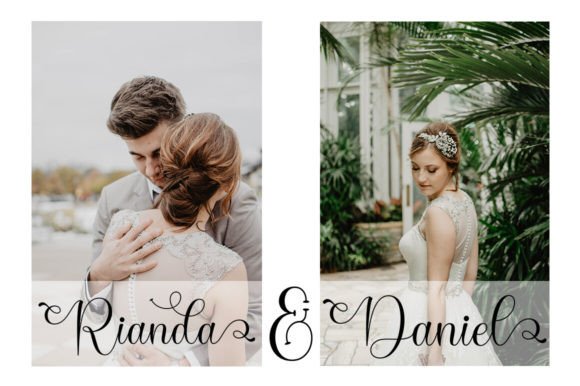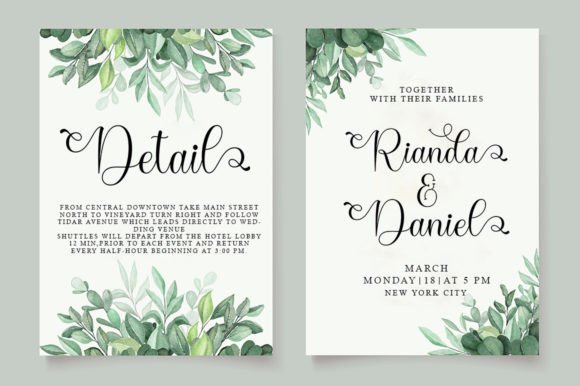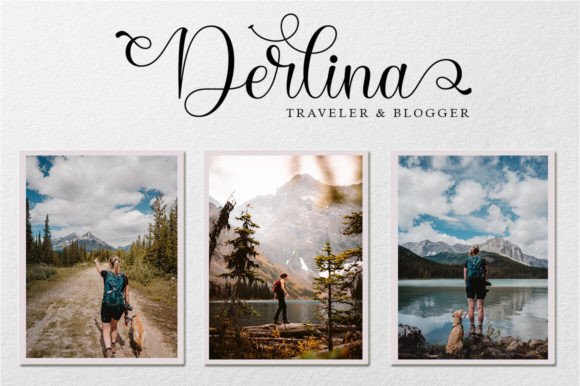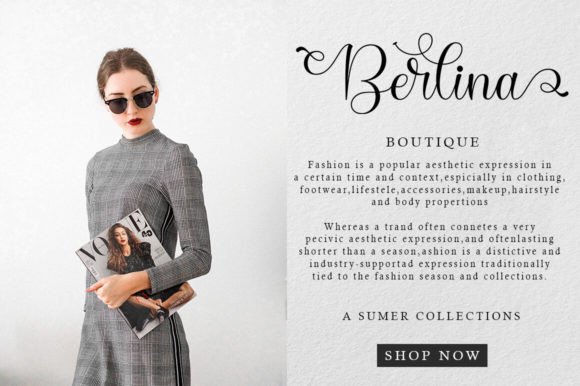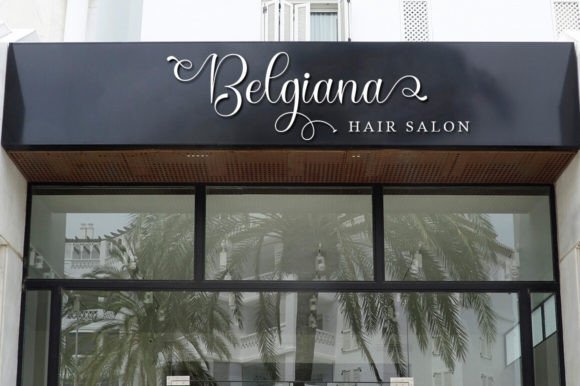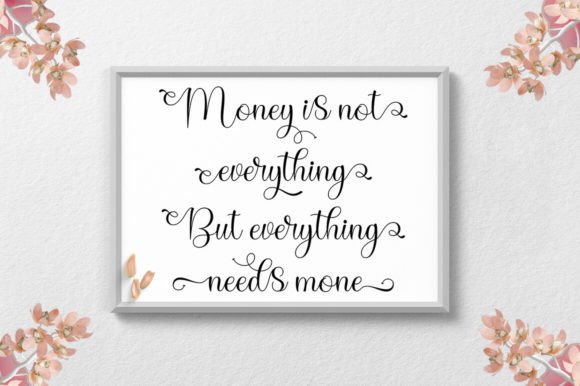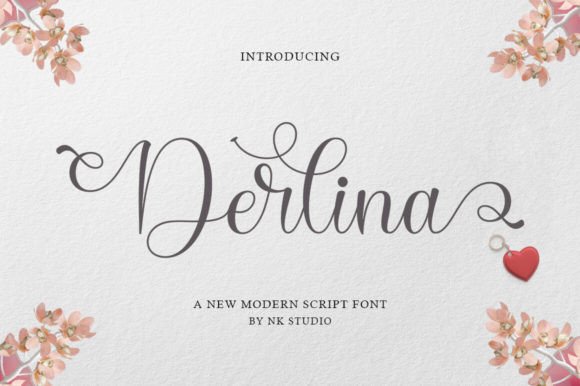
Introducing Derlina Font: Elevate Your Designs with Modern Elegance
In the world of typography, a font can make all the difference in the aesthetic and effectiveness of a design. For designers and crafters seeking a modern and elegant touch, the Derlina Font is an exceptional choice. This modern script typeface has been meticulously crafted to ensure that every letter contributes to making your text not only visually appealing but also highly readable.
The Essence of Derlina Script
Derlina Script is characterized by its contemporary design, making it a versatile font suitable for a wide array of projects. Whether you’re working on wedding invitations, greeting cards, posters, business cards, quotes, blog headers, branding, logos, fashion and clothing designs, letters, or stationery, Derlina Script brings a level of sophistication and charm that can elevate your work.
Key Features of Derlina Font
• Modern Script Style: Derlina boasts a modern script style that adds a touch of elegance and refinement to any text. Its fluid strokes and balanced letterforms make it pleasing to the eye.
• Versatility: One of the standout features of Derlina is its versatility. It can be used in a variety of contexts, from formal to casual, making it a valuable addition to any designer’s toolkit.
• Attention to Detail: Each letter in the Derlina Font has been carefully crafted to ensure that the text looks beautiful and cohesive. This attention to detail means that your designs will have a professional and polished appearance.
• Readability: Despite its elegant and cursive nature, Derlina Script maintains a high level of readability, making it suitable for both headings and body text.
Applications of Derlina Font
The versatility of Derlina Script means it can be applied to a multitude of design projects. Here are some of the areas where it truly shines:
• Weddings and Invitations: The elegant and sophisticated nature of Derlina makes it perfect for wedding invitations, save the dates, and other wedding-related stationery.
• Branding and Logos: For businesses looking to establish a brand identity that exudes modernity and elegance, Derlina can be a great choice for logos, business cards, and letterheads.
• Fashion and Clothing: The modern and stylish look of Derlina Script makes it ideal for fashion brands, clothing lines, and accessories.
• Digital and Print Media: Whether it’s for blog headers, posters, greeting cards, or social media graphics, Derlina can add a touch of class and sophistication to your designs.
Tips for Using Derlina Font Effectively
To get the most out of Derlina Script, consider the following tips:
• Pair with Complementary Fonts: When using Derlina for headings, pair it with a clean, sans-serif font for body text to create contrast and visual interest.
• Adjust Letter Spacing: For optimal readability, especially in longer texts, adjust the letter spacing to ensure that the text flows well.
• Utilize Font Sizes: Play with different font sizes to create a hierarchy of information, making your designs more engaging and easier to navigate.
Derlina Font, with its modern script style and meticulously crafted letterforms, offers designers and crafters a powerful tool for creating visually stunning and effective designs. Its versatility, elegance, and readability make it suitable for a wide range of projects, from weddings and branding to fashion and digital media. By incorporating Derlina Script into your design projects, you can elevate your work and leave a lasting impression on your audience.